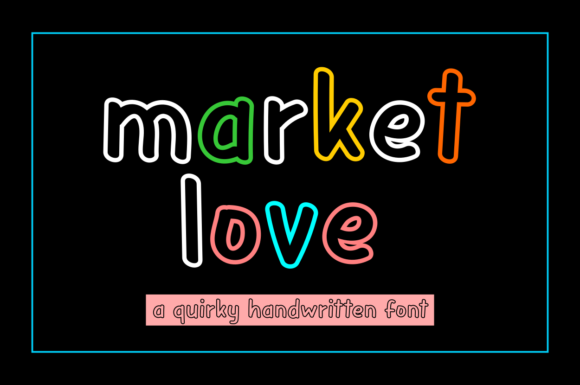
About Market Love Font
Meket Love is a cool and fresh outlined display font. Whether you are using it for cartoon-related designs, children’s games, quotes, titles, brand names, book covers, posters, or just any creation that requires a touch of beauty, this font is a great choice.